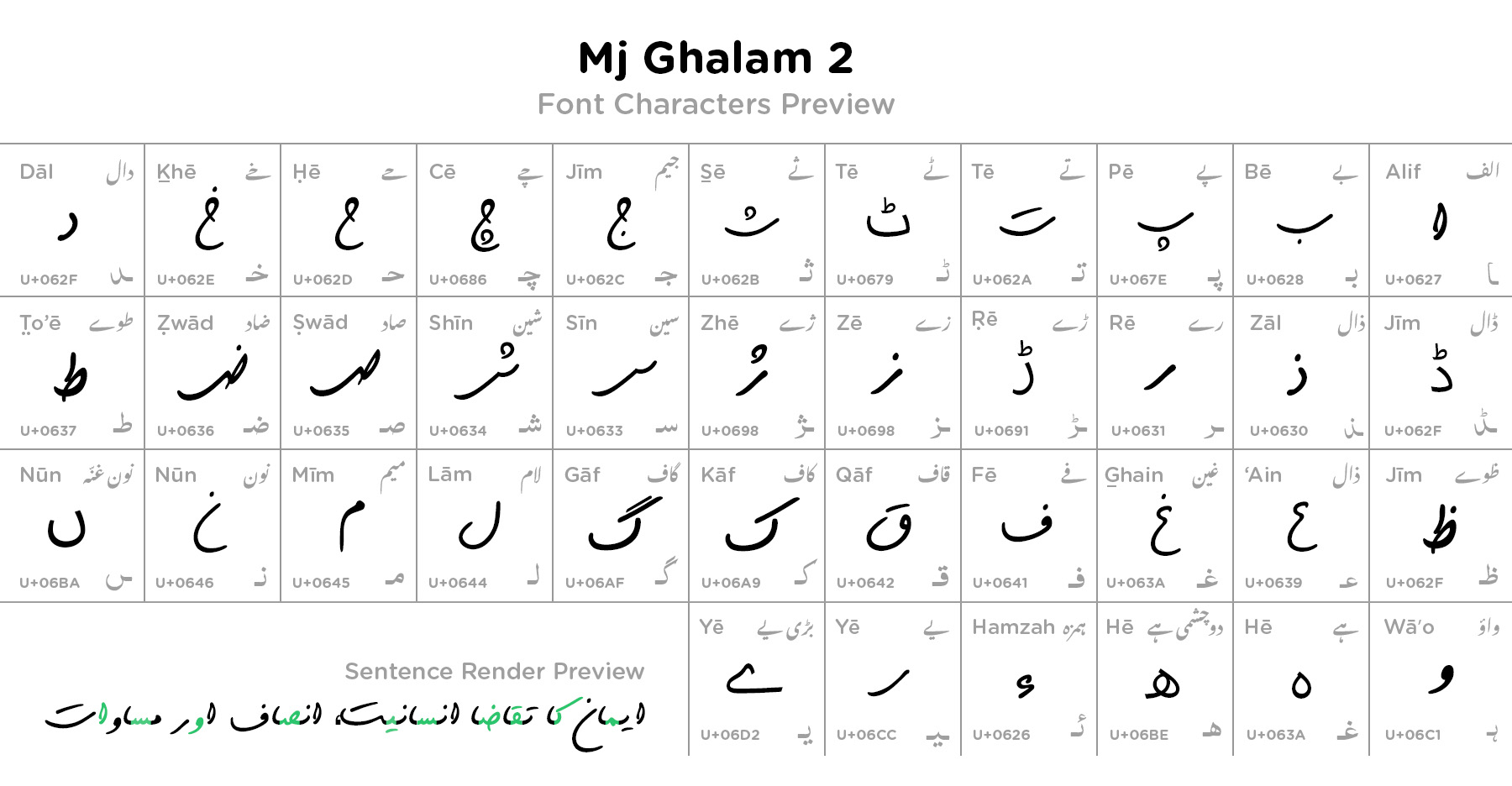
Mj Ghalam 2
Mj Ghalam 2 is a distinctive Urdu script font with a natural, handwritten feel. It is the identical twin font of its counterpart, MjGhalam 2, in appearance with the same overall appeal, just a slight difference. Designed and manufactured by Hamoonsoft, this font is copyrighted by Mj Farsi Fonts ®. Originally released in 2004 and later converted by type designer Mojtaba Kia in 2008, the font features a soft, messy appearance, with each letter maintaining a unique formation. The letters are not aligned on the baseline and often appear slightly above it, enhancing the handwritten appeal. The font has a semi-bold thickness with condensed letters, rounded corners, flowing letterforms, and soft, dull edges. Comprising 291 characters and 220 glyphs, it offers versatility and usability, although it is available only in a single Regular weight, which limits its adaptability for various design needs.
The font’s varying letter thickness and solid yet untidy strokes add a personal touch, making it ideal for projects where a sense of individuality is desired. It is particularly well-suited for applications such as poetry, postcards, book covers, titles, logos, and branding. However, due to its messy and natural appearance, Mj Ghalam 2 has relatively low legibility at smaller sizes, making it better suited for small-text applications. The font is compatible with multiple regional and Latin-based languages, including Urdu, Persian, Arabic, English, and Greek, making it a versatile choice for projects with diverse language requirements. Additionally, MJ Ghalam 2 supports the latest Unicode blocks, such as Basic Latin, Latin-1 Supplement, Spacing Modifier Letters, and Arabic, further enhancing its usability across various platforms.
Font Family Mj Ghalam 2
Font Developer Mojtaba Kia